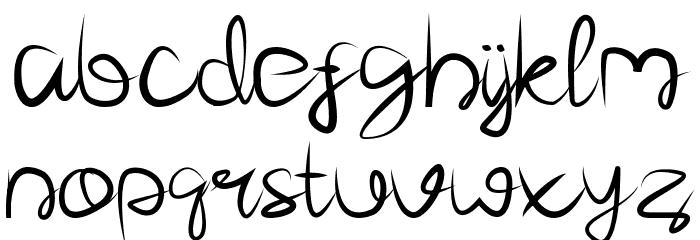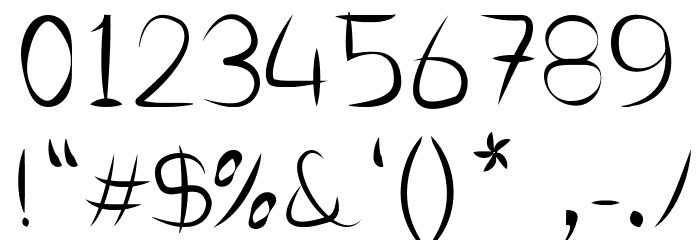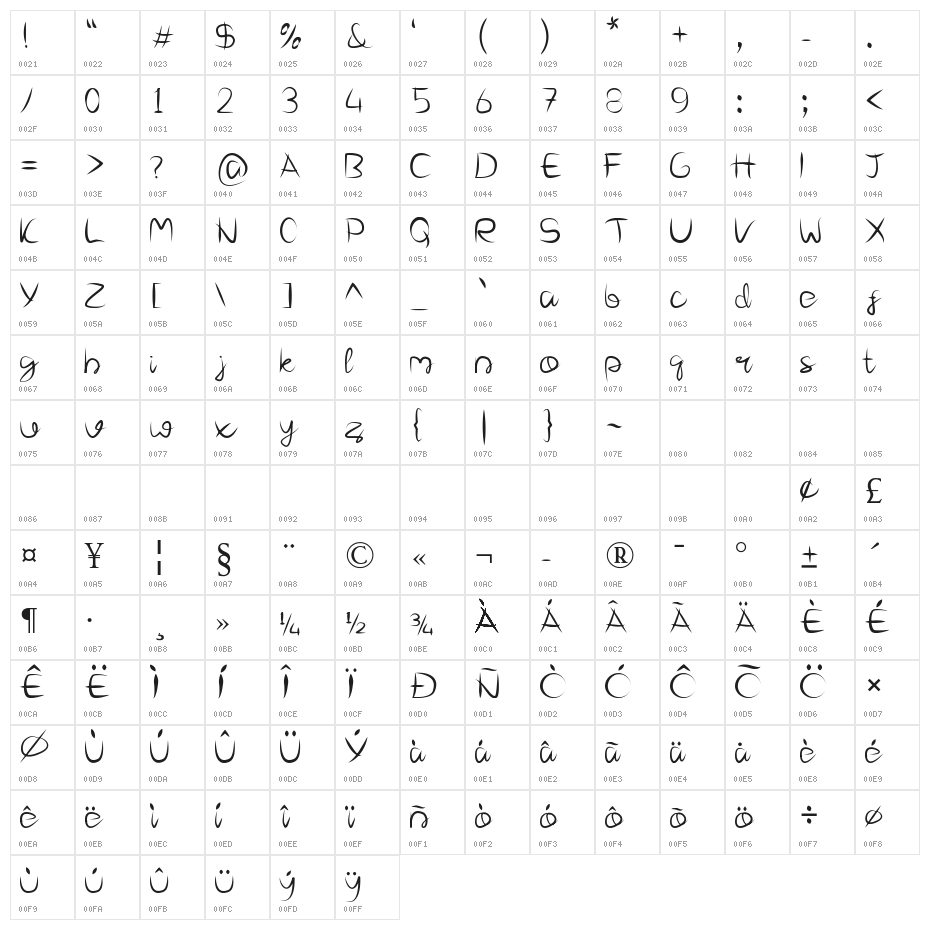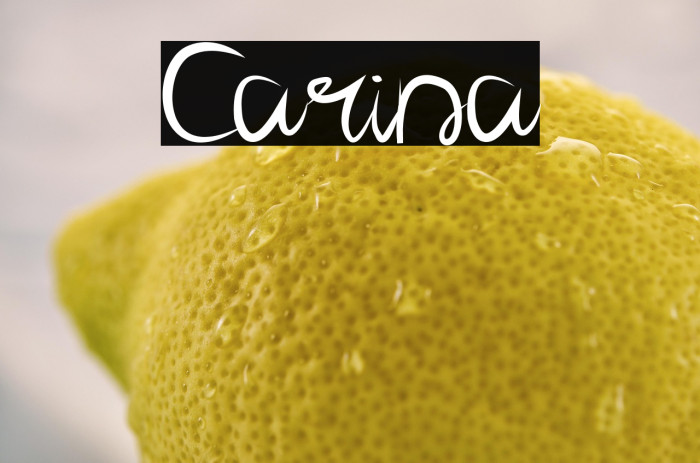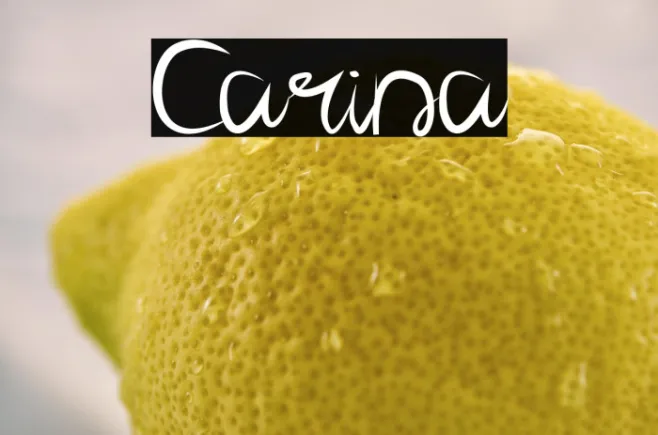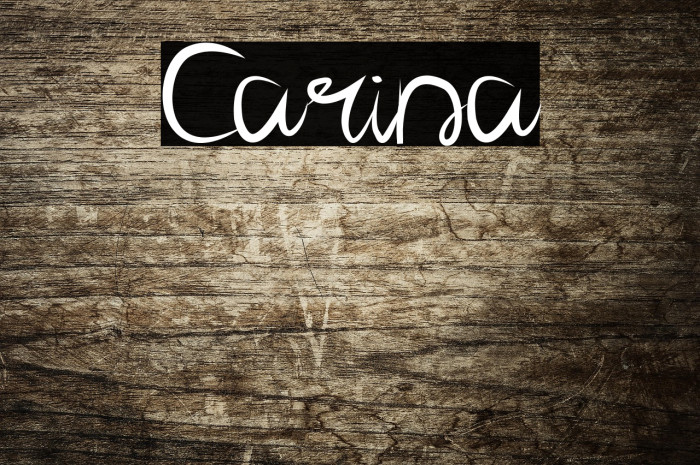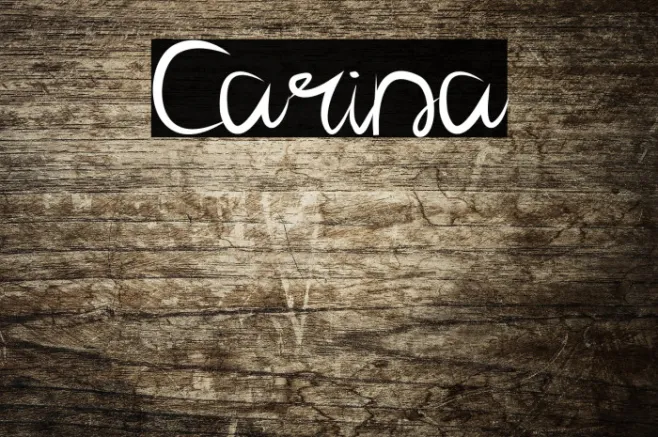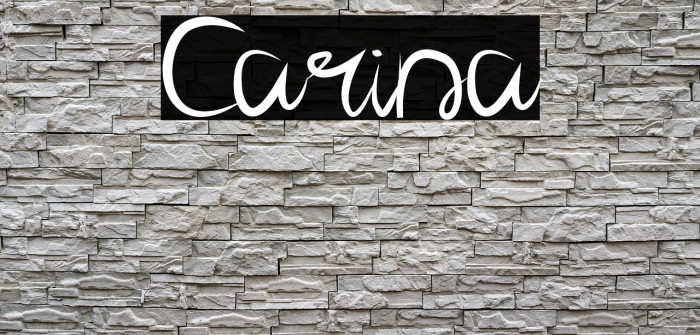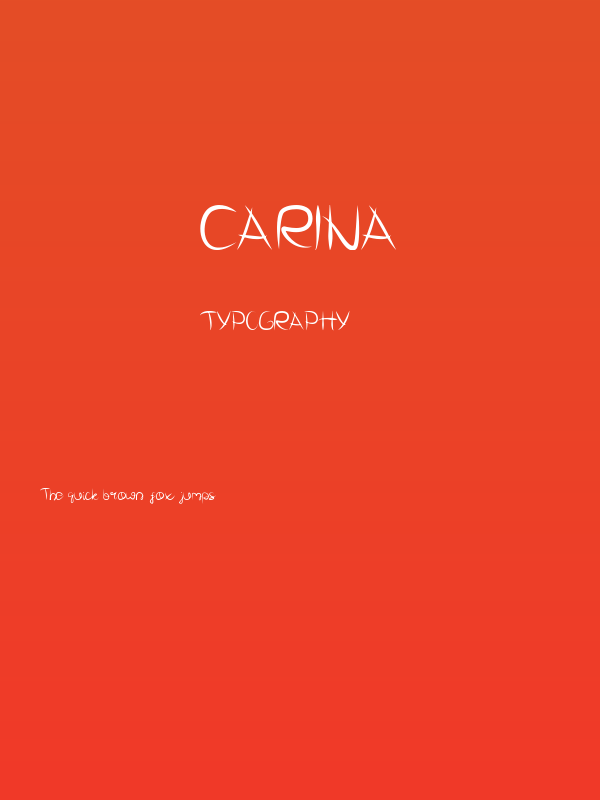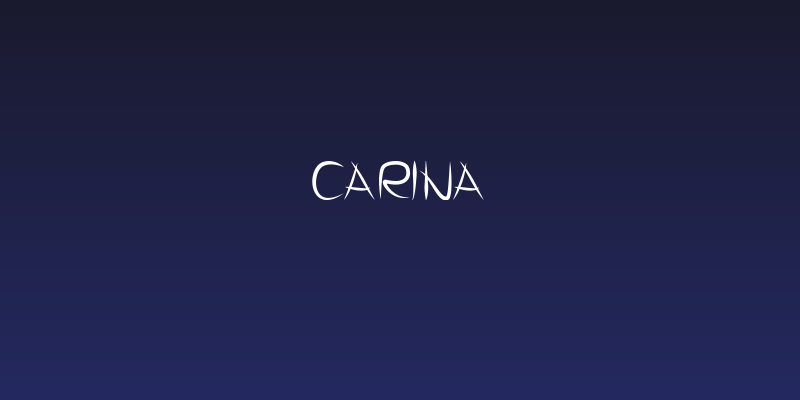
Carina Font
This font features a unique and artistic style, characterized by its flowing, calligraphic strokes and elegant curves. The uppercase letters are bold and dynamic, with a slight slant that adds movement and energy. The lowercase letters maintain a cohesive style, with loops and swirls that enhance its decorative appeal. The numerals are consistent with the overall design, offering a playful yet sophisticated look. Special characters are creatively integrated, maintaining the font's artistic flair. This font is ideal for projects that require a touch of elegance and creativity.
An artistic and flowing calligraphic font with elegant curves.
- Proposed Projects: Ideal for wedding invitations, greeting cards, branding, and artistic posters.
- Use Case: Logos, Invitations, Artistic projects